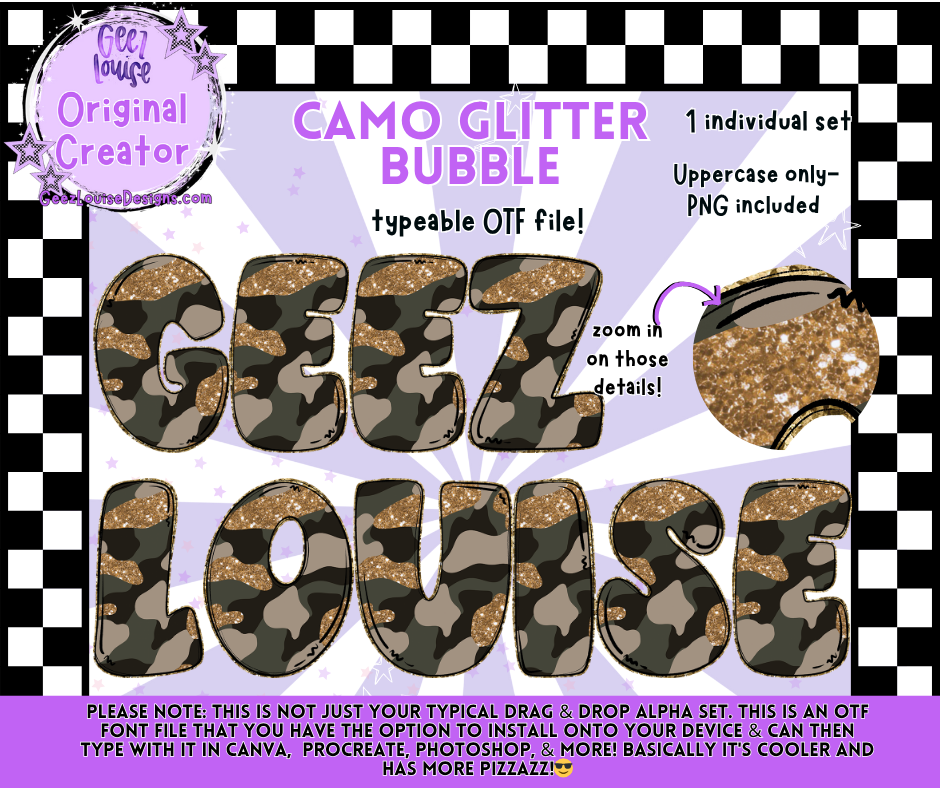
Camo Glitter Bubble Typeable OTF Font + PNG Set
Shine bright while keeping it bold with the Camo Glitter Bubble Typeable OTF Font! ✨
This is not your average alpha set — it’s a fully typeable OTF font that installs directly onto your device, letting you type in Canva, Procreate, Photoshop, and more. Each uppercase letter features a camo base topped with glittery accents for the perfect mix of tough and glam.
Perfect for:
• Glam military or outdoor-themed designs
• Sassy and strong apparel graphics
• Layered text or logo designs
• Eye-catching social posts and branding projects